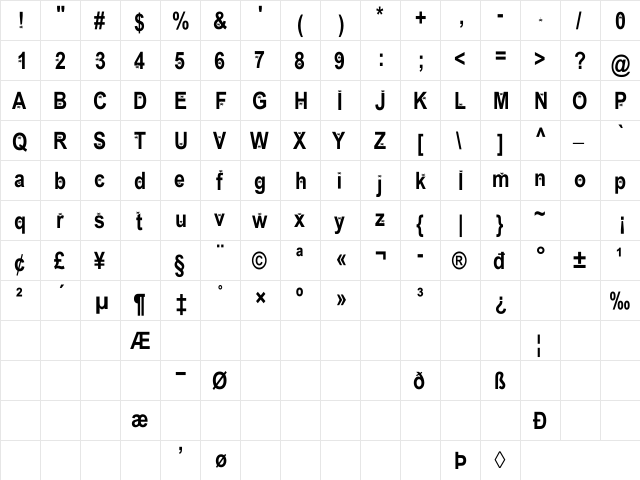
Eency Weency Spider Eency Weency Spider
| Foundry | Monotype Typography |
| Designer | Monotype Type Drawing Office - Robin Nicholas, Patricia Saunders 1982 |
Design Context for Eency Weency Spider Typeface
Eency Weency Spider takes a measured approach to typography — its balanced proportions and neutral character make it a reliable workhorse for both digital and print work.